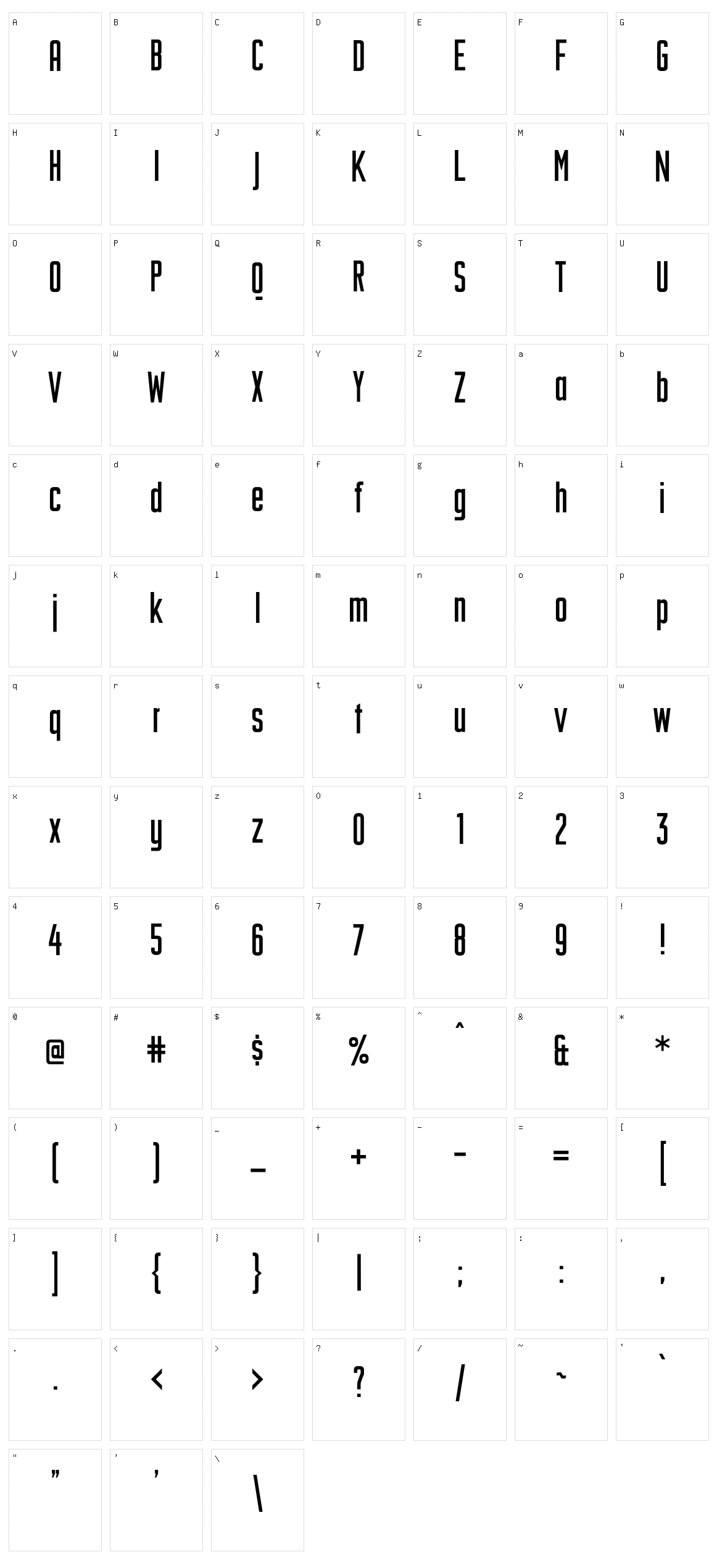
Typeface Sturkopf Grotesk
A strange alternate to Plakative Grotesk
fixed opentype-features liga and cv0x
fixed t+z unicode from maja to private area
added opentype-features liga and cv0x
bigger dots on i and j, changed s+z, j and dotlessj
make punctation marks quadric (comma, period ... )
(german sharp s), a, b, d, g, h, m, n, p, q, r
added alternate z (U+E000), germandbls (U+E001)
adjustet Kerning, changed vert. bar, long s (uni017f),